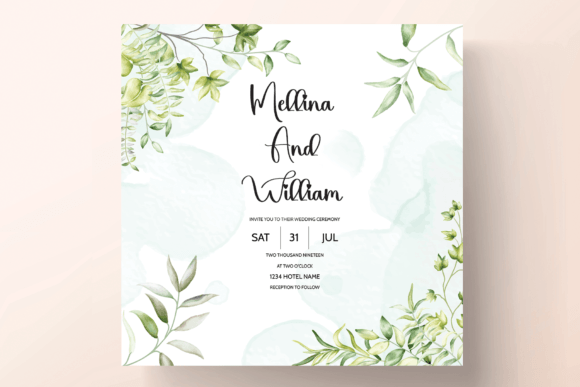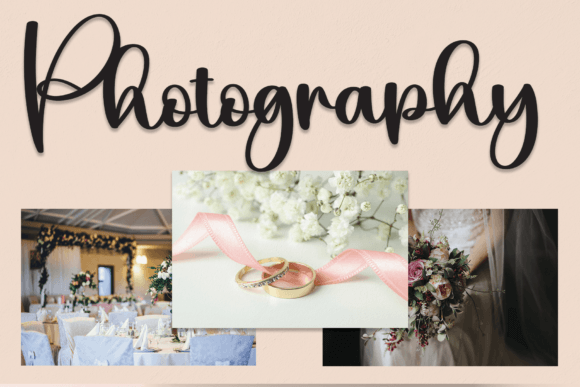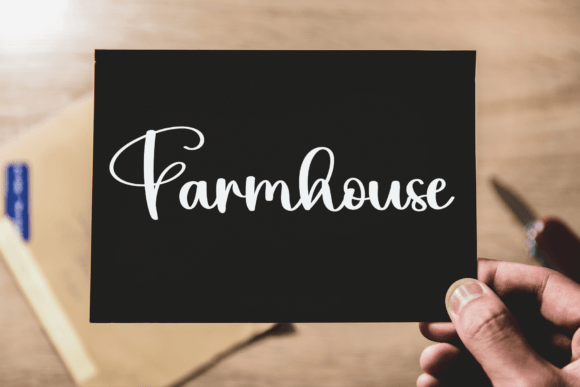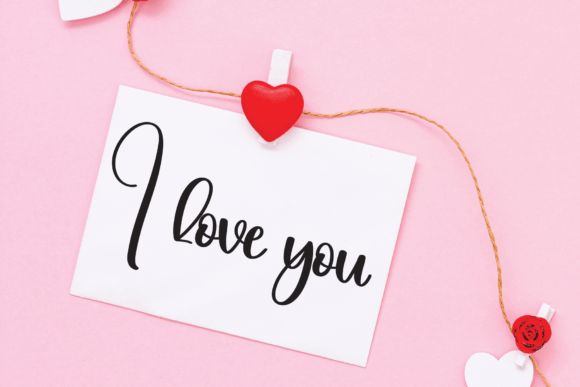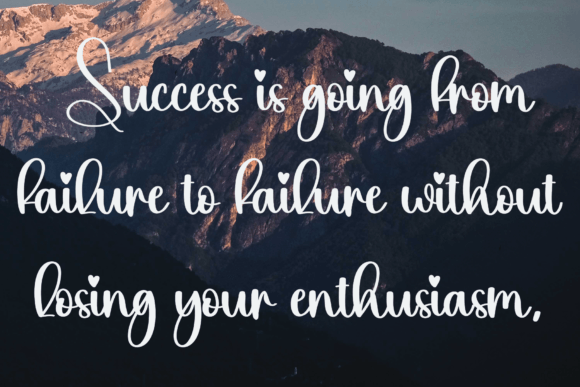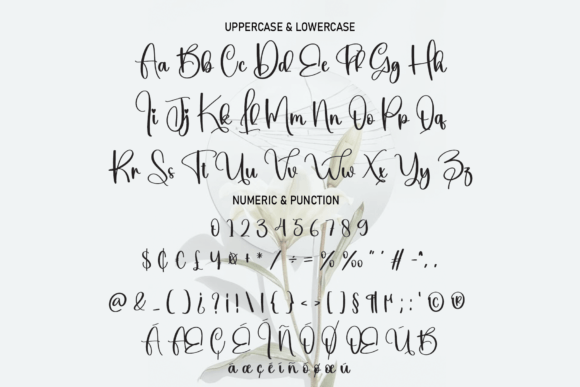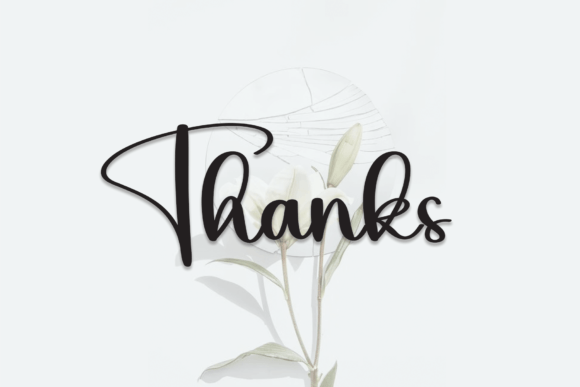
Brilliant Font
About Brilliant Font
“Brilliant” is a wonderful and impactful handwritten script font that is perfectly suited for wedding use. This charming font is characterized by its elegant and playful appearance, making it an ideal choice for wedding-related designs. What sets “Brilliant” apart is its unique feature of incorporating hearts to dot the i’s, adding a delightful and romantic touch to the text.
The font’s handwritten style exudes warmth and personality, creating a friendly and inviting atmosphere. Its playful details, such as the hearts above the i’s, make it particularly well-suited for fun and joyful wedding celebrations. Whether you’re designing wedding invitations, save-the-date cards, thank-you notes, or any other wedding-related materials, “Brilliant” adds a touch of whimsy and romance to your designs.
Incorporating “Brilliant” into your wedding-related projects allows you to infuse them with a sense of love and celebration. The font’s playful and sweet demeanor enhances the overall theme of joy and happiness, making it perfect for capturing the essence of a couple’s special day. Its impact and charm ensure that your wedding designs leave a lasting impression on guests, setting the tone for a memorable and delightful celebration.
Embrace the wonderful and playful nature of “Brilliant” and watch how it transforms your wedding-related designs. Its handwritten script and heart accents create a delightful and romantic atmosphere, making it the perfect choice for couples looking to add a touch of fun and love to their wedding materials. With “Brilliant,” your wedding designs are sure to shine with charm and creativity.